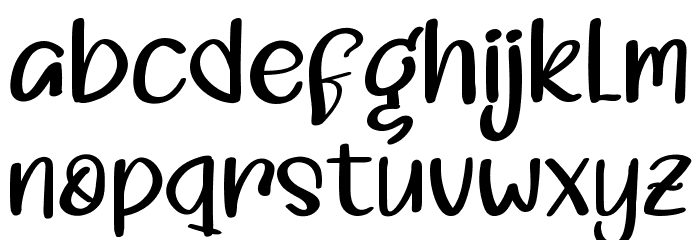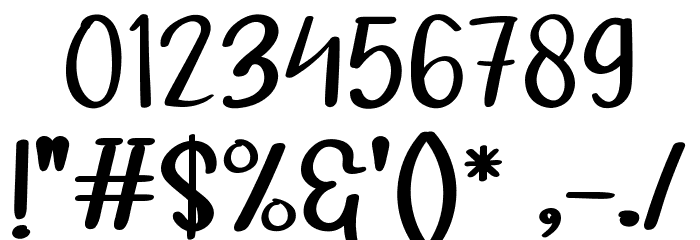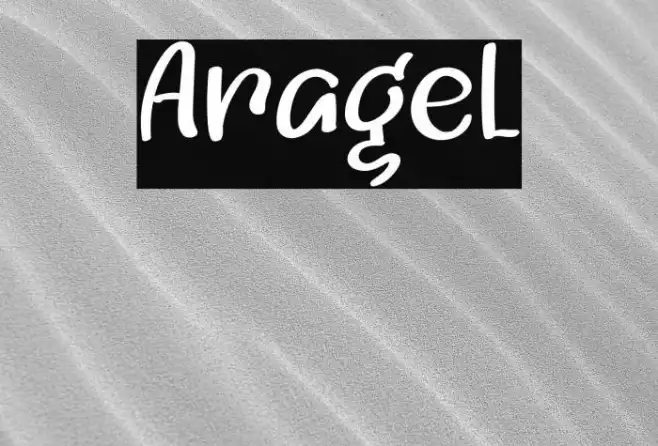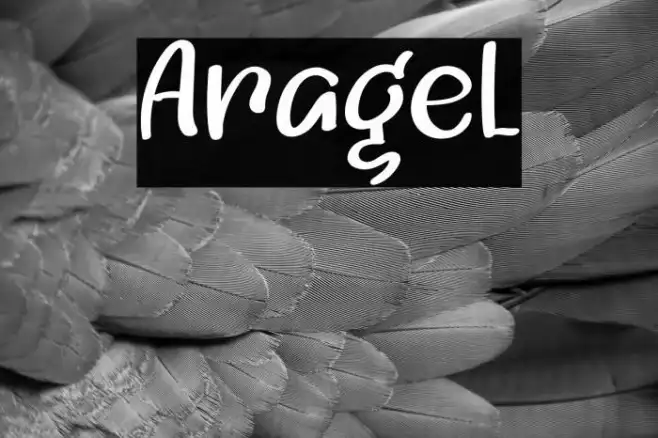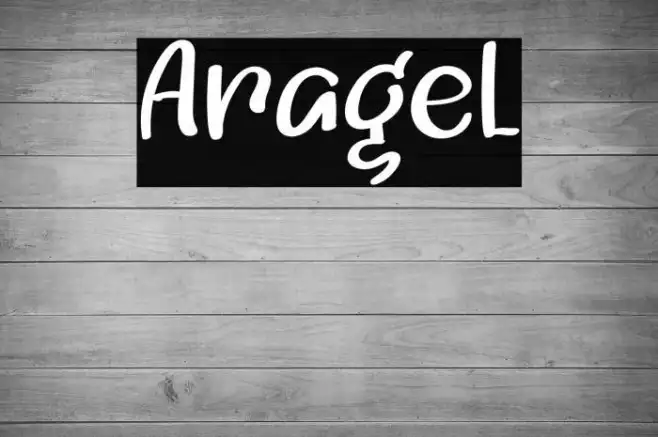
Aragel Font
This font features a playful and casual handwritten style with smooth, flowing curves and rounded edges. The letters are slightly slanted, giving a dynamic and lively appearance. Uppercase and lowercase characters are distinct, with the uppercase letters being more prominent and bold. The numerals and special characters maintain the same playful aesthetic, making the font versatile for various creative projects. The overall design is friendly and approachable, suitable for conveying a sense of warmth and informality.
A playful, casual handwritten font with smooth curves and rounded edges.
- Proposed Projects: Ideal for greeting cards, children's books, playful branding, and social media graphics.
- Overall Style: Casual
- Use Case: Logos, Headlines, Informal Text